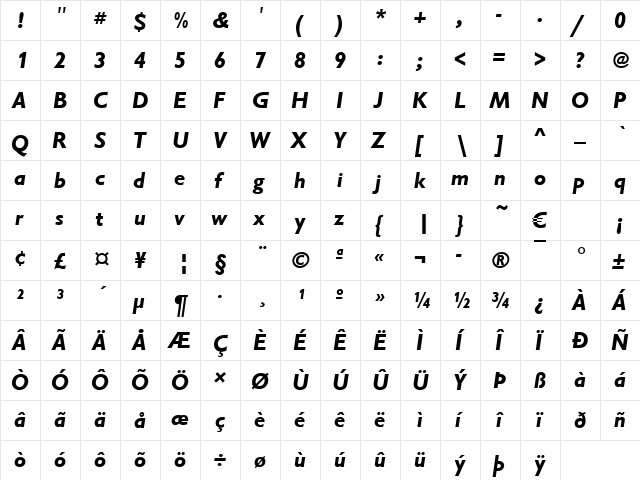
Sharp Bold Italic
Design Context for Sharp Typeface
Sharp offers clean, dependable letterforms without strong stylistic allegiance, making it a practical choice for designers who need flexibility. Its italic angle brings a sense of urgency and motion to the letterforms. Its bold stroke weight gives it real presence on the page.
Pro Tip: Try Sharp for annotation and caption copy alongside an upright companion — the contrast in angle creates a dynamic but ordered typographic system.